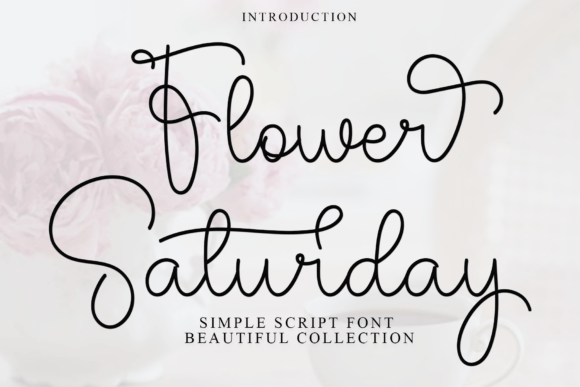
Introducing Flower Saturday Font: Elevate Your Designs with a Touch of Elegance
In the world of typography, fonts play a crucial role in conveying messages, expressing emotions, and creating lasting impressions. Among the myriad of fonts available, Flower Saturday Font stands out for its unique, soft, and eye-catching design. This beautiful font is crafted with distinctive strokes that give it a special character, making it not only meaningful but also incredibly versatile for a wide range of applications. Whether you’re working on design projects, crafts, or other creative endeavors, Flower Saturday Font is poised to enhance your work and captivate your audience.
The Unique Charm of Flower Saturday Font
Flower Saturday Font is distinguished by its soft and unique touch, setting it apart from more conventional fonts. Its design is characterized by gentle, flowing lines and curves that lend a sense of elegance and sophistication to any project. The distinctive strokes of this font are carefully crafted to provide a special character that can make your designs stand out. Whether you’re aiming for a subtle, understated look or a more pronounced, eye-catching effect, Flower Saturday Font offers the versatility to achieve your creative vision.
Versatility Across Creative Fields
One of the key advantages of Flower Saturday Font is its versatility. This font is not limited to a specific type of project or medium. Instead, it can be seamlessly integrated into a wide array of creative works, including:
- Design Projects: From branding and advertising to digital media and print, Flower Saturday Font can add a touch of elegance and sophistication to your designs.
- Crafts: Whether you’re creating handmade cards, scrapbooking, or engaging in other crafty pursuits, this font can add a personal and unique touch to your creations.
- Artistic Works: For artists and illustrators, Flower Saturday Font offers a beautiful way to add text and captions to your artwork, enhancing the overall aesthetic and impact.
This versatility makes Flower Saturday Font an invaluable resource for creatives across various disciplines.
A Wide Range of Characters
Flower Saturday Font boasts a comprehensive set of characters, offering a rich typographic experience. This extensive character set allows for:
- Multilingual Support: Create designs that cater to diverse audiences across different languages and regions.
- Variety in Typography: Experiment with different combinations of letters, numbers, and symbols to add depth and interest to your designs.
The variety of characters in Flower Saturday Font empowers you to explore new creative possibilities and push the boundaries of your designs.
Enhance Your Designs and Appeal to a Broad Audience
The true power of Flower Saturday Font lies in its ability to enhance your designs and resonate with a wide range of audiences. Its natural and elegant style:
- Captivates the Eye: The soft, unique touch of Flower Saturday Font draws attention and creates a lasting impression.
- Evokes Emotion: The gentle, flowing lines of this font can evoke feelings of serenity, elegance, and sophistication.
- Transcends Boundaries: Its versatile design makes it suitable for various artistic and creative fields, allowing you to connect with audiences from different backgrounds and interests.
By incorporating Flower Saturday Font into your projects, you can create designs that not only stand out but also speak to your audience on a deeper level.
Flower Saturday Font is more than just a typeface; it’s a creative tool that can elevate your designs, add a touch of elegance, and captivate your audience. Its unique charm, versatility, compatibility, and extensive character set make it an ideal choice for a wide range of projects and applications. Whether you’re a professional designer, artist, or crafter, Flower Saturday Font offers the perfect blend of style and functionality to bring your creative visions to life.